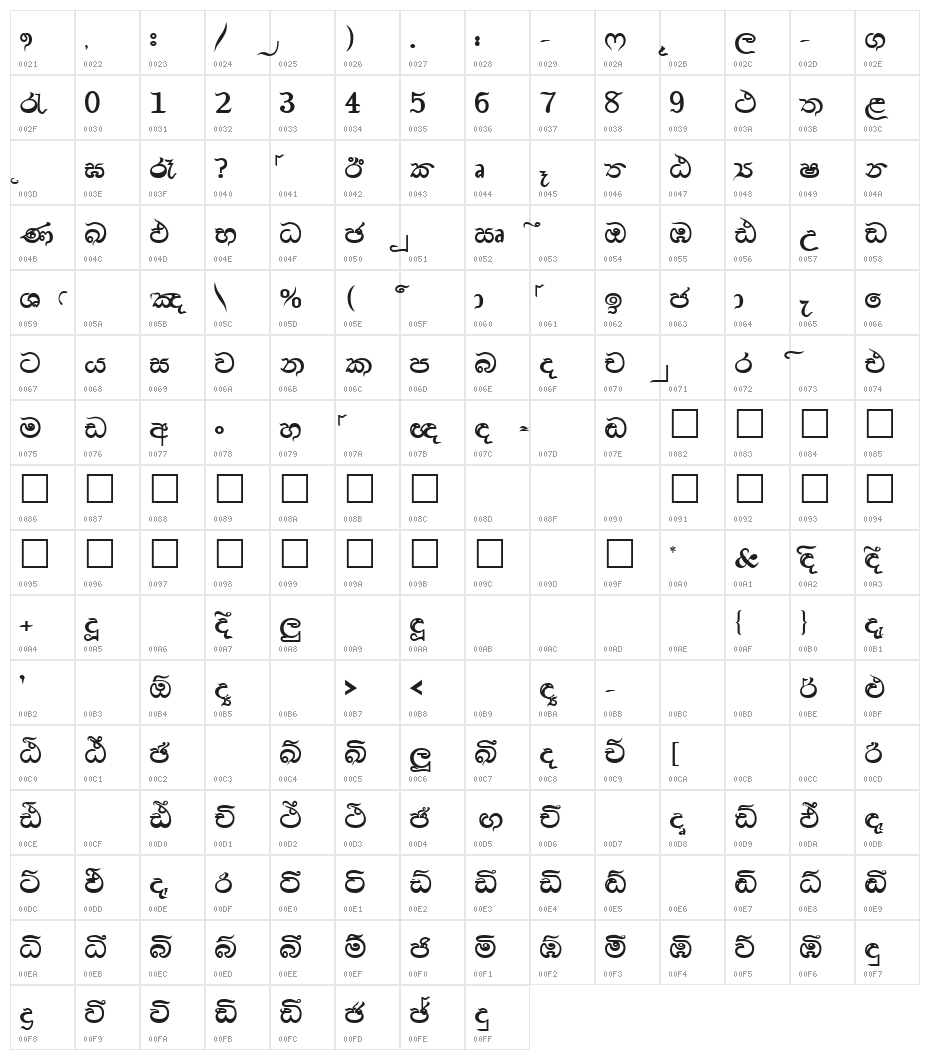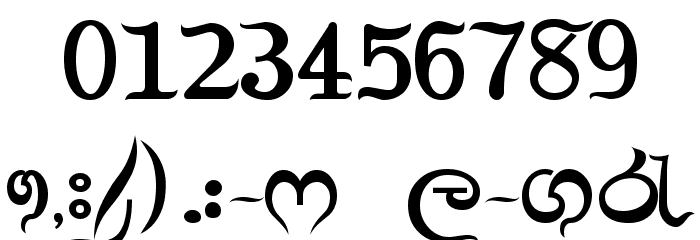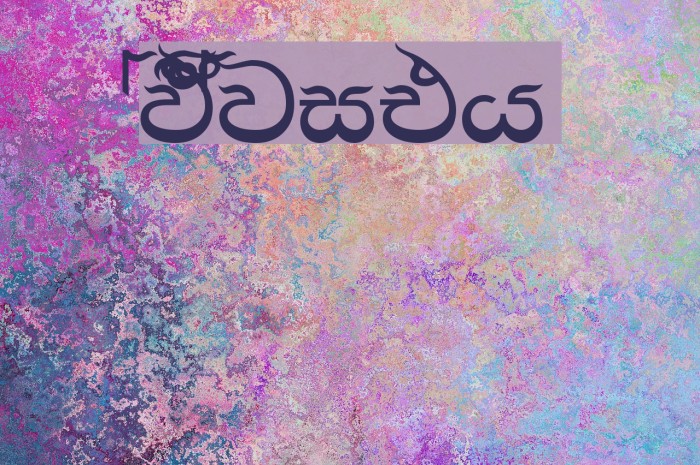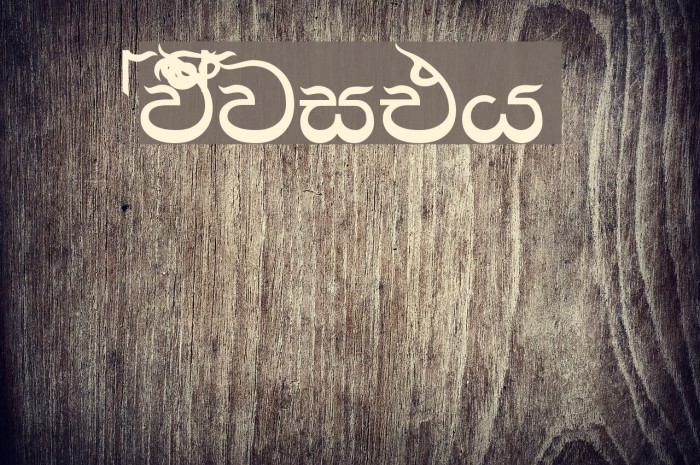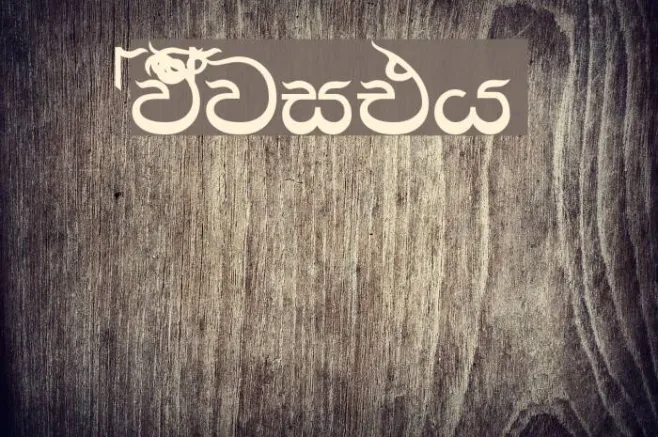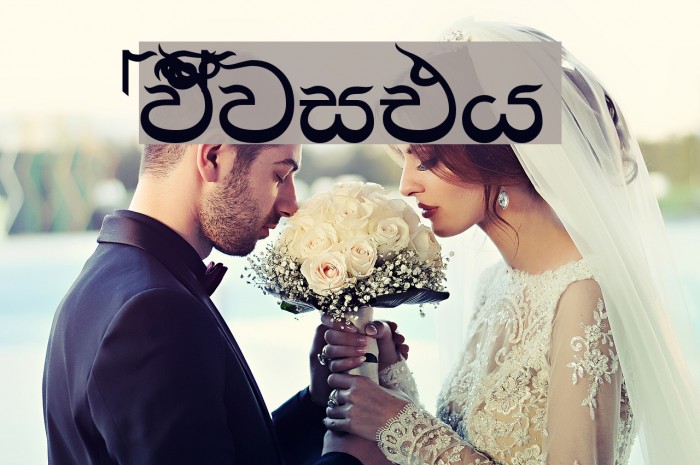
AMS_Ajith Font
AMS_Ajith Description
This font features a distinctive and ornate style, characterized by its intricate curves and flourishes. The script is highly decorative, with each character exhibiting a unique flair that adds a sense of elegance and sophistication. The numerals are bold and clear, maintaining the decorative theme while ensuring readability. Special characters are designed with similar attention to detail, enhancing the overall aesthetic. The font's style is reminiscent of traditional calligraphy, making it suitable for projects that require a touch of classic elegance.
| Use Case | Logos, Invitations, Certificates |
| Proposed Projects | Ideal for invitations, certificates, logos, and any project requiring a classic and elegant touch. |